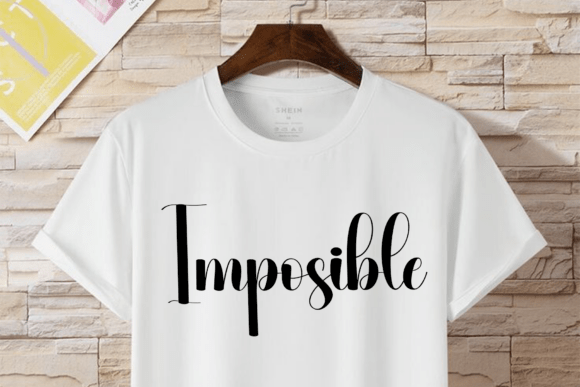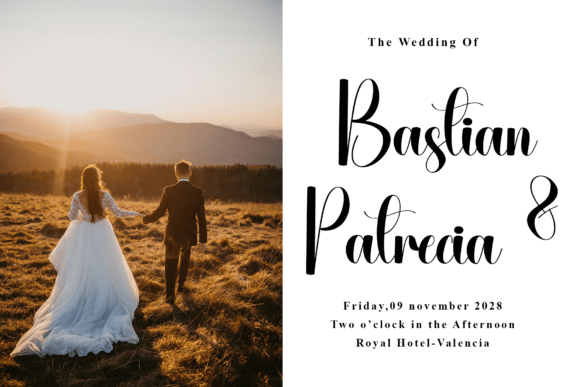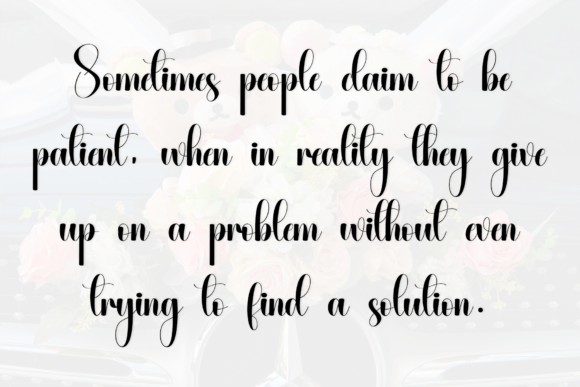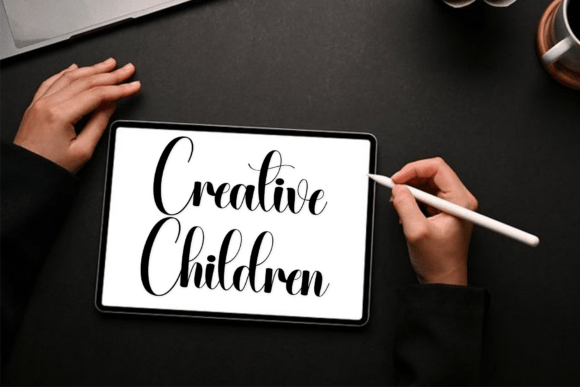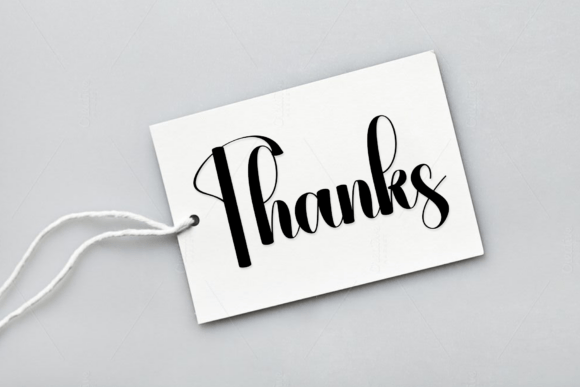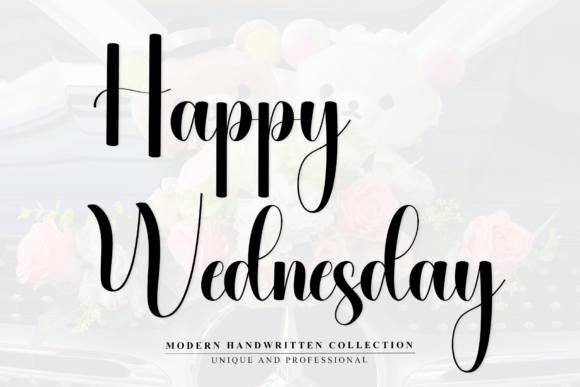
Introducing Happy Wednesday Font: A Luxurious Handwritten Script Font
Are you tired of using the same old fonts for your designs? Look no further! Happy Wednesday Font is a stunning, luxurious handwritten script font that is sure to elevate your creative projects. This beautiful font combines calligraphic elegance with whimsical charm, making it perfect for designers and crafters looking to add a touch of sophistication and playfulness to their work.
What Makes Happy Wednesday Font So Special?
Happy Wednesday Font is a true showstopper, with its flowing swashes, delicate ligatures, and refined letterforms. This font is designed to evoke a sense of seasonal enchantment, capturing the quiet beauty of winter with festive charm. Whether you’re working on a holiday project, a branding campaign, or simply want to add some personality to your designs, Happy Wednesday Font is the perfect choice.
Key Features of Happy Wednesday Font
• Handwritten Script Font: Happy Wednesday Font is a beautiful, handwritten script font that adds a touch of elegance and sophistication to any design.
• Calligraphic Elegance: With its flowing swashes and delicate ligatures, this font combines calligraphic elegance with whimsical charm.
• Refined Letterforms: Each letterform is carefully crafted to create a sense of refinement and luxury, making this font perfect for high-end designs.
• Festive Charm: Happy Wednesday Font captures the quiet beauty of winter with festive charm, making it perfect for holiday projects and seasonal designs.
Happy Wednesday Font is a versatile font that is perfect for a wide range of design applications, including:
• Branding and Packaging: Add a touch of luxury and sophistication to your brand with this stunning font.
• Holiday Projects: Create festive and fun designs for the holiday season with Happy Wednesday Font.
• Stationery and Invitations: Add a touch of elegance and whimsy to your stationery and invitations with this beautiful font.
• Digital Designs: Use Happy Wednesday Font to add a touch of personality and style to your digital designs, including social media graphics and website headers.
Tips for Using Happy Wednesday Font
Here are a few tips for getting the most out of Happy Wednesday Font:
• Use it as a Headline Font: Happy Wednesday Font is perfect for headlines and titles, where its elegant and refined letterforms can really shine.
• Pair it with a Simple Font: Pair Happy Wednesday Font with a simple, sans-serif font for a beautiful contrast that adds visual interest to your design.
• Experiment with Swashes and Ligatures: Don’t be afraid to experiment with the font’s swashes and ligatures to add a touch of whimsy and personality to your design.
In conclusion, Happy Wednesday Font is a luxurious handwritten script font that is sure to elevate your designs. With its calligraphic elegance, whimsical charm, and refined letterforms, this font is perfect for designers and crafters looking to add a touch of sophistication and playfulness to their work. Whether you’re working on a holiday project, a branding campaign, or simply want to add some personality to your designs, Happy Wednesday Font is the perfect choice.